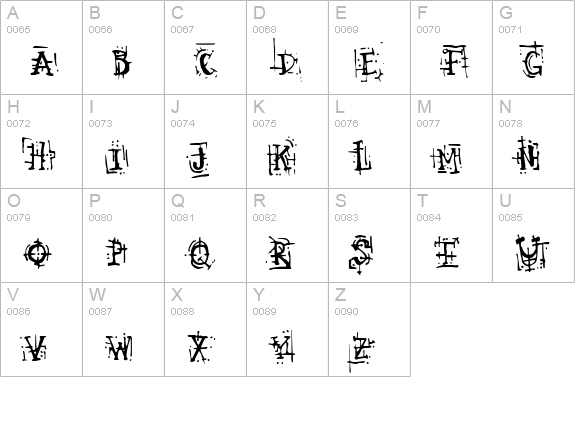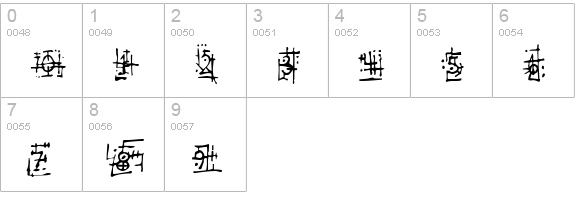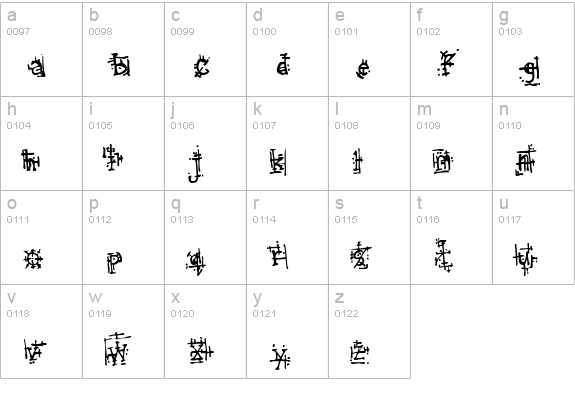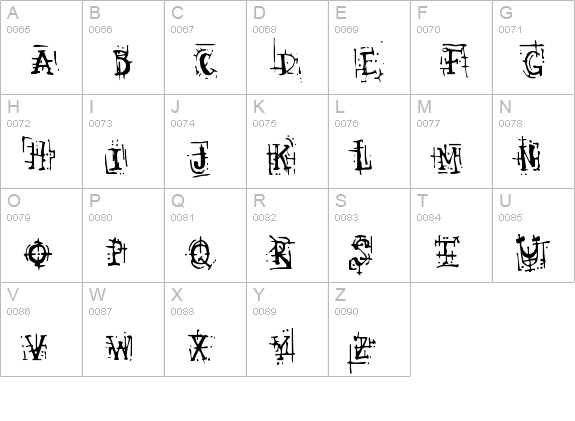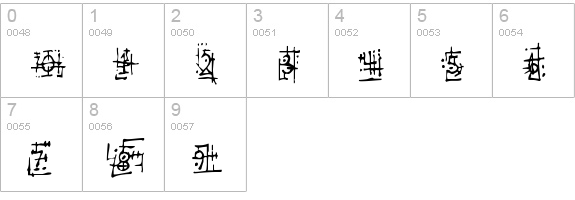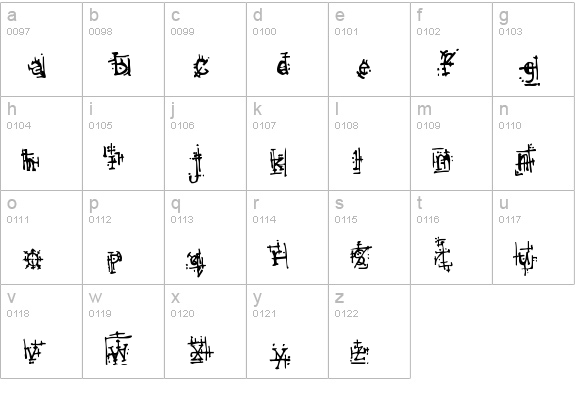
Armaggedon Industrial Font Details
Armaggedon Industrial font is a bold and rugged typeface that exudes strength and power. With its sharp edges and industrial-inspired design, this font is perfect for projects that require a touch of grit and determination. Whether you're creating posters, logos, or website headers, Armaggedon Industrial font will make a bold statement. Best of all, Armaggedon Industrial font is available for free download at FontsMarket.com. Simply visit the website and add this powerful font to your collection without any cost. Embrace the industrial vibe and add a touch of edginess to your designs with Armaggedon Industrial font today!